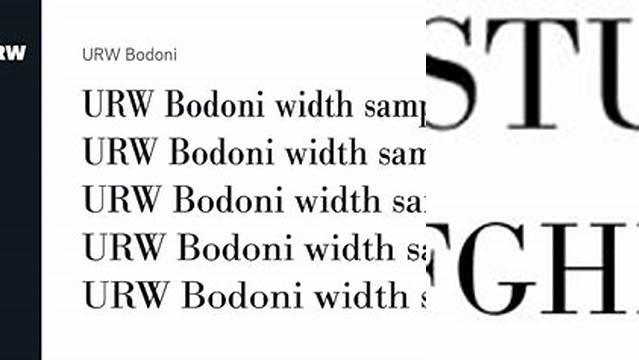
Hey guys! Are you on the hunt for a sophisticated and elegant typeface that can elevate your design projects? Look no further because today, we're diving deep into the world of the Bodoni URW Light font. This font is a classic choice for many designers because it's both timeless and versatile. In this guide, we'll explore how you can get your hands on this font for free, discuss its key features, and give you some tips on how to use it effectively. Let's get started!
What is the Bodoni URW Light Font?
Firstly, let's get to know this amazing font a bit better. The Bodoni URW Light is a member of the Bodoni family of typefaces. Created by Giambattista Bodoni in the late 18th century, Bodoni fonts are renowned for their high contrast between thick and thin strokes, their sharp serifs, and their overall elegance. These features make them perfect for a variety of uses. The 'Light' variant, in particular, offers a delicate and refined look, making it ideal for headings, display text, and anything where you want to convey a sense of sophistication. Think of it like the little black dress of fonts – always in style and always appropriate.
This font's design is characterized by its dramatic contrast between thick and thin strokes, which provides it with a crisp and elegant appearance. The serifs are sharp and refined, and the overall structure of the font suggests a sense of precision and artistry. These characteristics make Bodoni URW Light a versatile choice for different design projects where the goal is to add sophistication and readability. Its light weight adds to its elegance, and it is frequently chosen for projects where subtle grace is desired. The font's historical roots also bring an element of prestige, as it is rooted in the history of typography, so using Bodoni URW Light can immediately add an air of refined charm to any project. It's a favorite for things like high-end branding and editorial design.
Imagine you're creating an invitation for a wedding or a high-end event. Bodoni URW Light is perfect for that. Its airy appearance and fine details communicate a sense of exclusivity and care. Similarly, if you're working on a luxury brand's website, using Bodoni URW Light for headings or short paragraphs of text can help convey sophistication. The contrast between the thick and thin strokes makes it very readable, even at smaller sizes, and its classic design ensures that it will never go out of style. It's a great way to let people know you care about the details.
Where to Use Bodoni URW Light
So, where can you best utilize this elegant typeface? The Bodoni URW Light font is perfect for many design applications. However, its thin strokes and high contrast mean that it’s not always suitable for every purpose. Here are some of the best ways to use it:
- Headlines and Titles: Its elegant and eye-catching appearance makes it ideal for headlines, titles, and short display text. It grabs attention and conveys sophistication. Think about it: a magazine cover, a website banner, or the heading of a fancy invitation. This is where Bodoni URW Light really shines.
- Logos and Branding: Due to its timeless elegance, Bodoni URW Light can be a great choice for logos, especially for brands that want to project a luxurious or classic image. High-end fashion brands, beauty products, and luxury goods often use Bodoni fonts in their branding.
- Print Design: It works incredibly well in print, such as brochures, magazines, and posters. The clear, crisp lines of the font make it very readable, while the high contrast gives the design a professional look.
- Website Design: While it might not be ideal for long blocks of body text, Bodoni URW Light is superb for headlines and short snippets of text on websites. It adds a touch of sophistication and can make your website stand out.
On the other hand, Bodoni URW Light is not the best option for lengthy body text, especially at smaller sizes. The thin strokes can make it difficult to read for long periods. It's also not the best choice for projects where you need a font that’s very bold or playful. For body text, you might consider a font with a higher x-height and a more even stroke weight to improve readability. If you need a font that’s very versatile, Bodoni URW Light might not be your go-to choice. But for a touch of elegance and refinement, it's hard to beat.
In conclusion, the Bodoni URW Light font is a beautiful and versatile typeface that can add a touch of elegance and sophistication to your design projects. By following the guidelines above, you can use it effectively and create stunning visuals. Remember to always respect copyright and licensing agreements when downloading and using fonts. Have fun creating with Bodoni URW Light, and let your creativity shine!